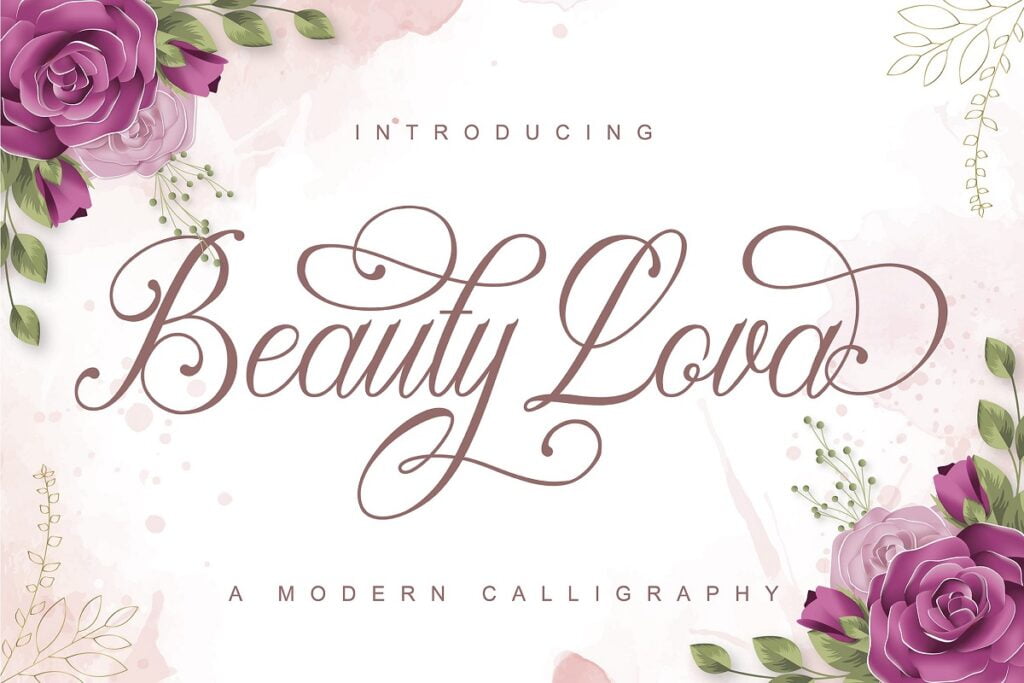
Beauty Lova Font
Beauty lova Font is a modern calligraphy script type that will raise every craft idea to the highest level. Mentari comes with lots of swash, which will allow you to add decorative touches in seconds. This font is PUA encoded which means you can access all the magic glyphs and swash easily!
Beauty Lova Calligraphy Script Font